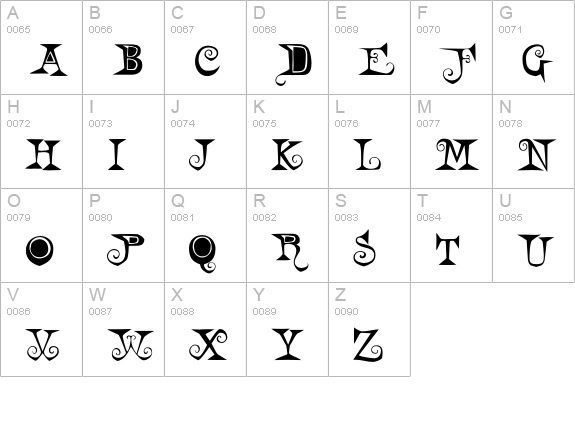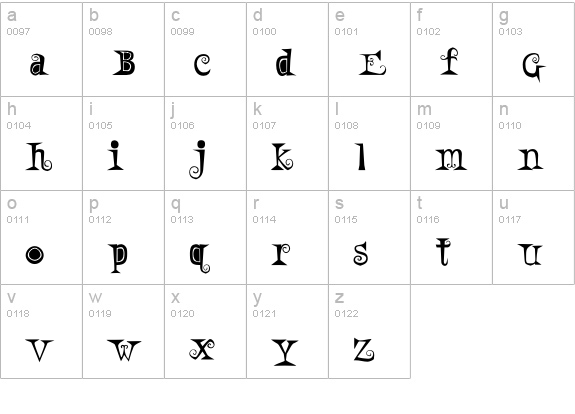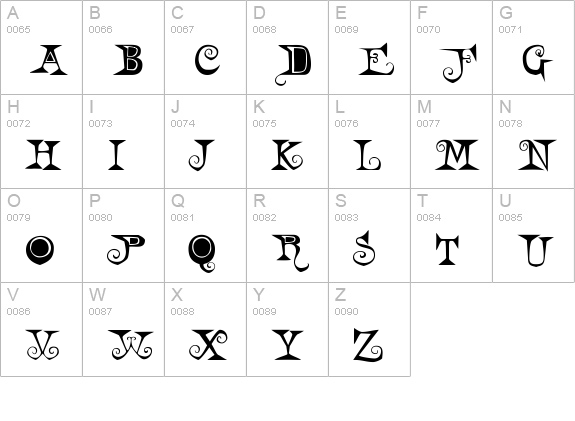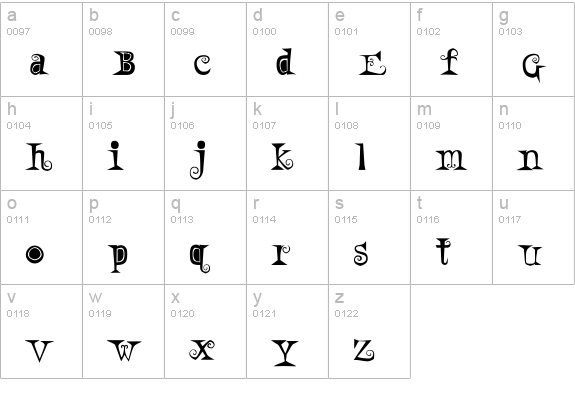
AWeirdPartySW Font Details
AWeirdPartySW font is a whimsical and quirky typeface that is perfect for adding a touch of playfulness to your designs. With its unique and eccentric characters, this font is sure to stand out and make a statement. Whether you're working on a party invitation, greeting card, or any other creative project, AWeirdPartySW font will bring a fun and festive vibe to your work. Best of all, this font is completely free to download at FontsMarket.com. So go ahead and add a touch of weirdness to your designs with AWeirdPartySW font today!